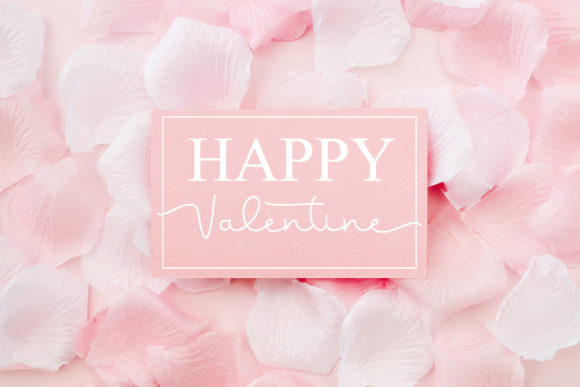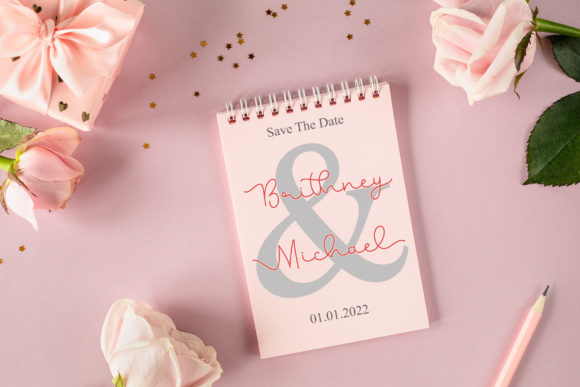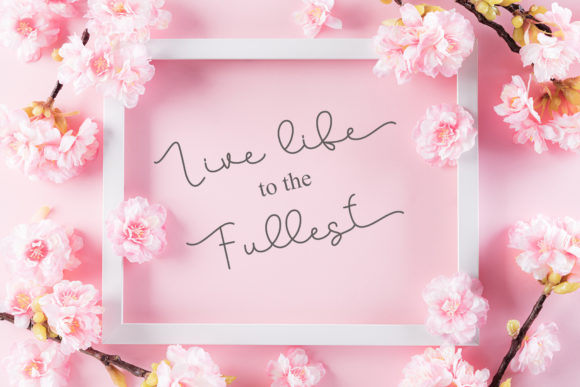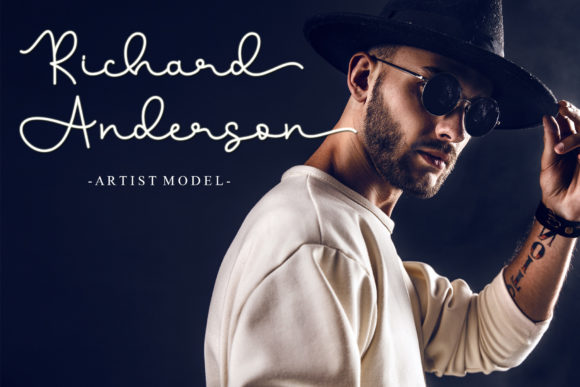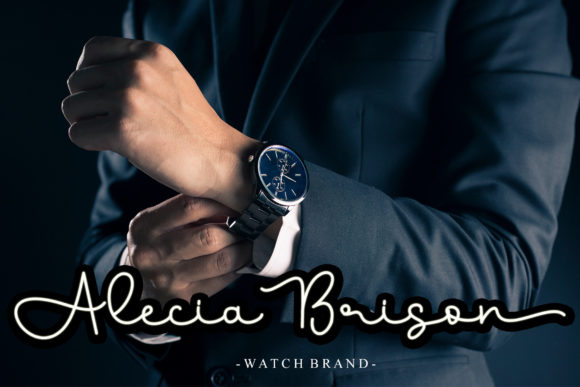
Somelove Font
About Somelove Font
Somelove is a free flowing handwritten font. This adaptable font will look great on a variety of design ideas. Somelove is PUA encoded which means you can access all glyphs and swashes with ease.